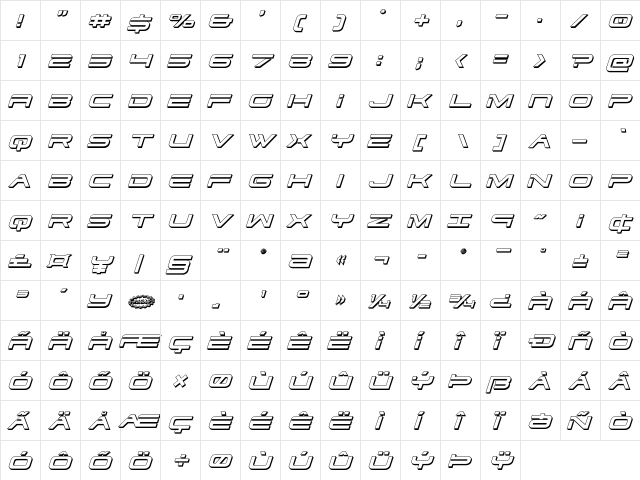
Dodger 3D Italic Italic
Design Context for Dodger 3D Italic Typeface
Dodger 3D Italic takes a measured approach to typography — its balanced proportions and neutral character make it a reliable workhorse for both digital and print work. Its italic angle brings a sense of urgency and motion to the letterforms.